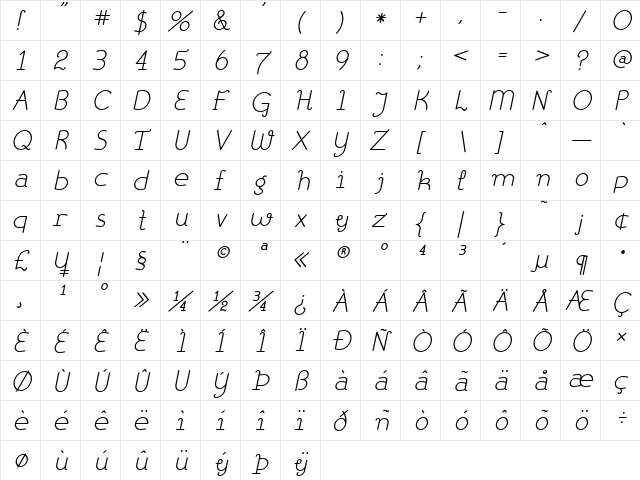
Book& Italic
| Foundry | Max Kisman |
| Designer | Max Kisman |
Design Context for Book& Typeface
Book& offers clean, dependable letterforms without strong stylistic allegiance, making it a practical choice for designers who need flexibility. The dynamic lean of this cut emphasises speed and emphasis in any layout.
Pro Tip: Try Book& for annotation and caption copy alongside an upright companion — the contrast in angle creates a dynamic but ordered typographic system.